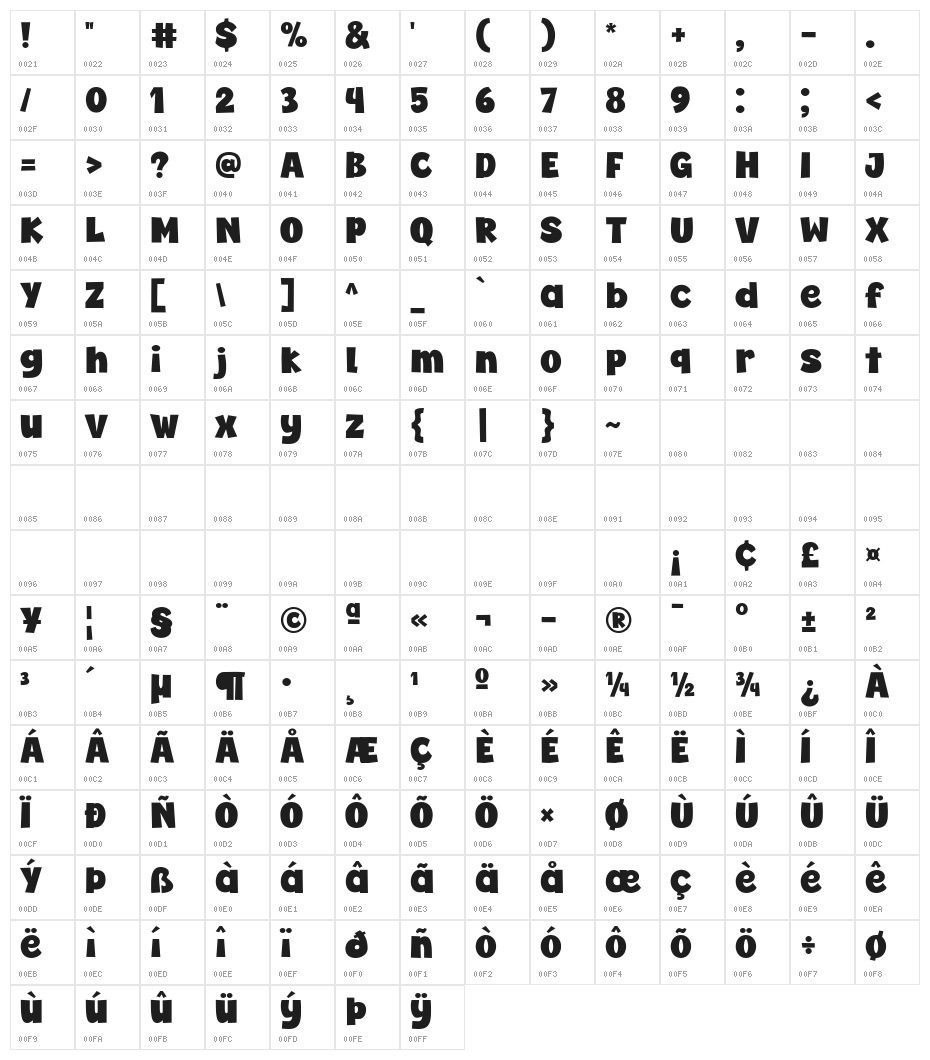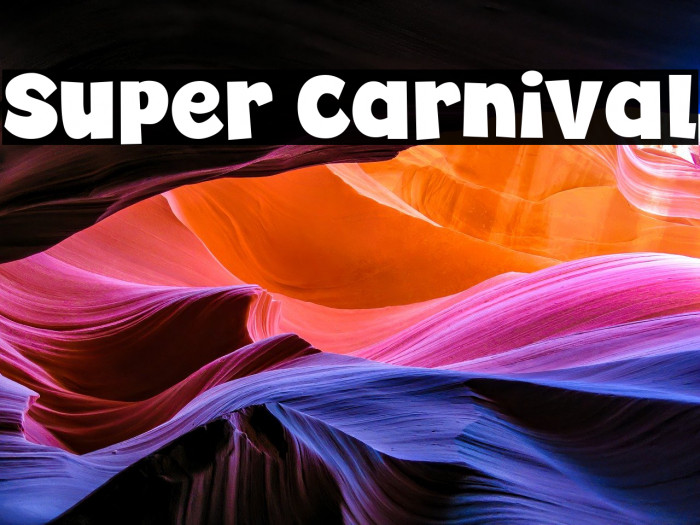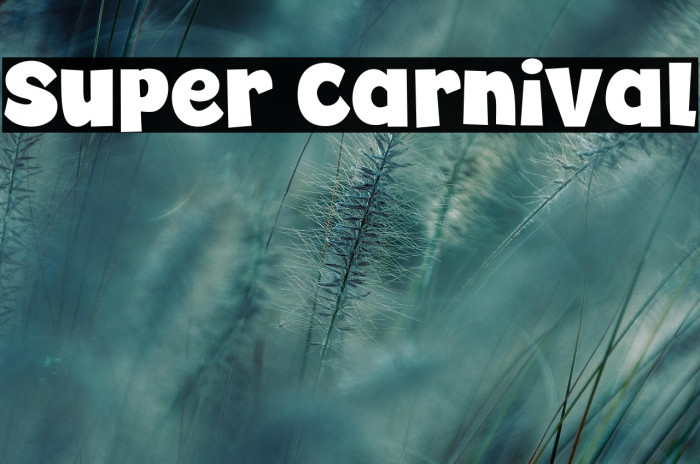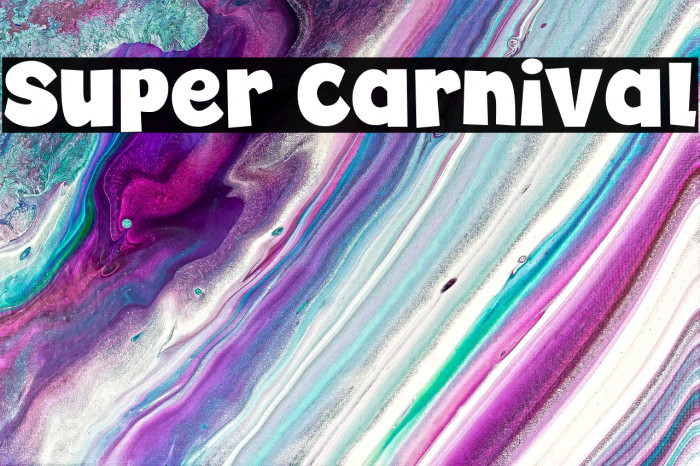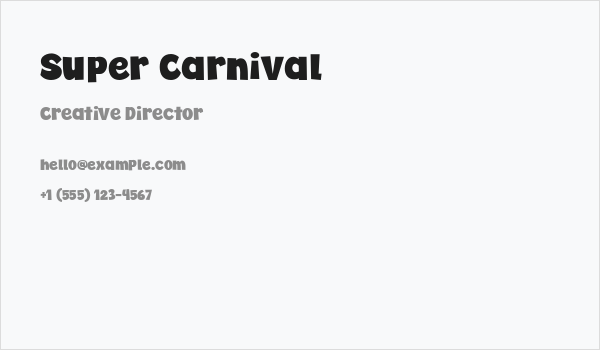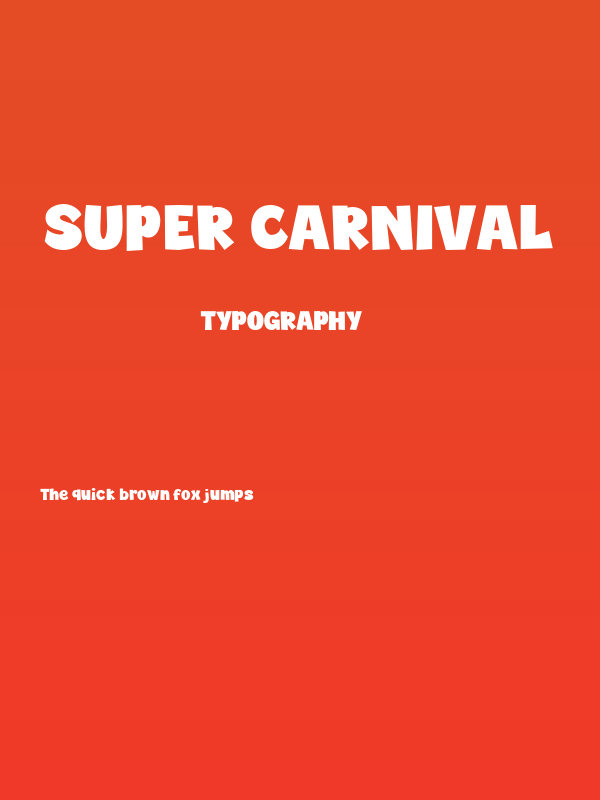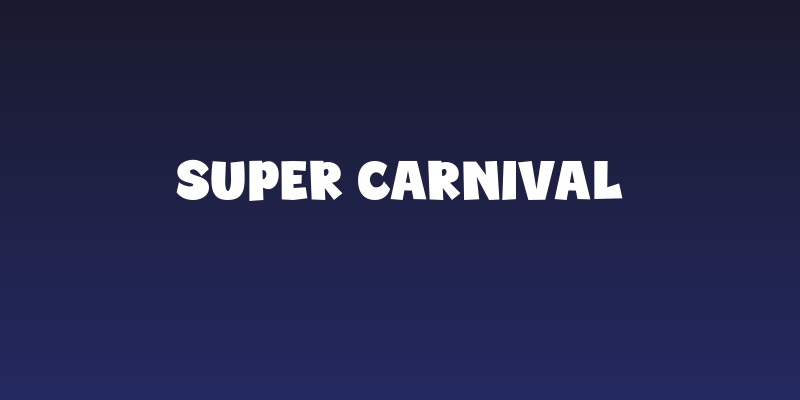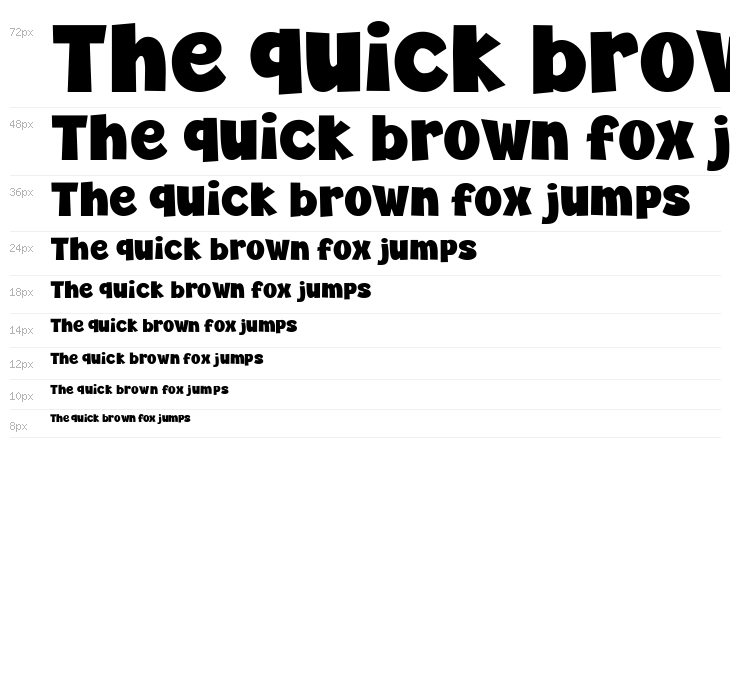
Super Carnival Font
Super Carnival Description
This font exudes a playful and bold character, with its thick, rounded strokes and slightly irregular shapes that give it a lively, whimsical feel. The uppercase and lowercase letters maintain a consistent weight, contributing to a cohesive look across all characters. The numbers and special characters are equally bold, ensuring they stand out in any design. The font's style is reminiscent of carnival or circus themes, making it ideal for designs that require a fun and energetic vibe. Its exaggerated curves and wide letterforms make it highly legible, even from a distance.
| Use Case | Headlines, Posters, Branding |
| Proposed Projects | Perfect for children's book covers, party invitations, playful branding, and event posters. |